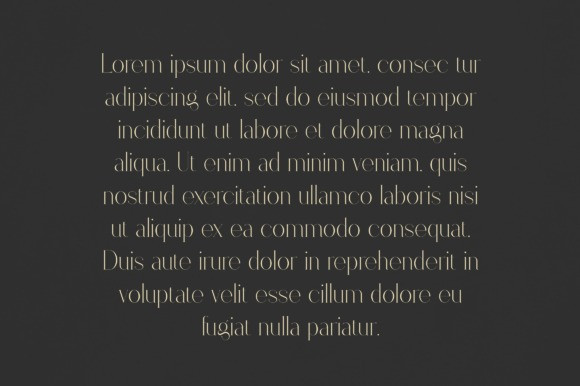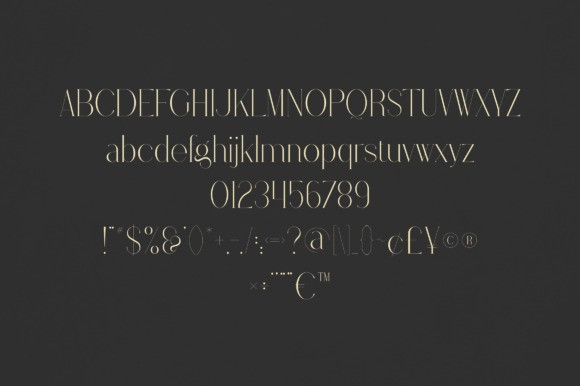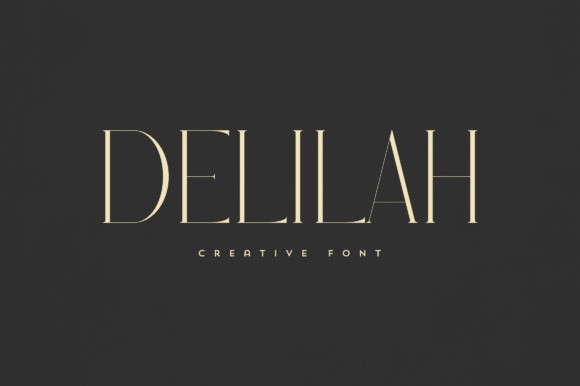
Delilah Font
Delilah Font is an elegant and versatile serif font that will make your typography truly unique! It will enchant every logo, branding, headline, or plain text!